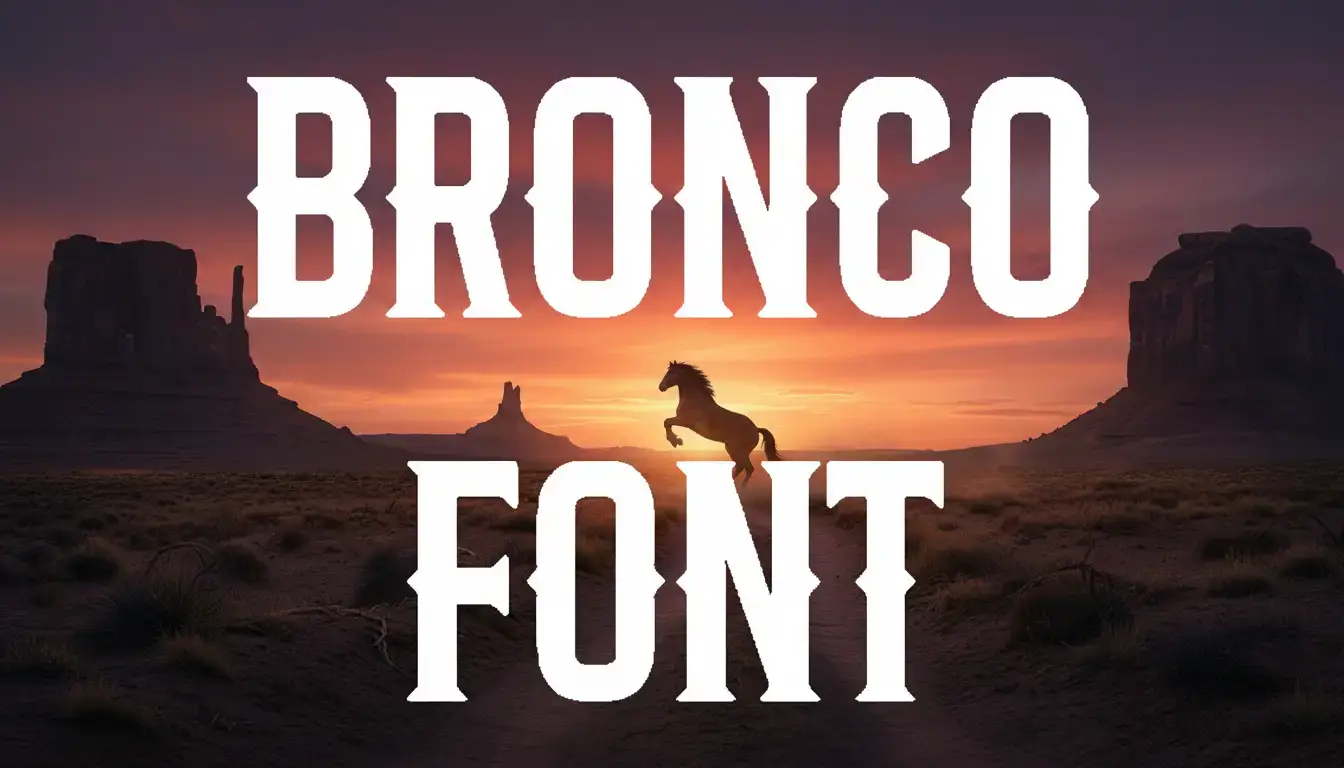
Bronco Font
Bronco Font Preview
Bronco
Bronco Character Map
What You Can Type With Bronco
Bronco covers the full alphabet in upper and lowercase, plus all ten numbers, so you can set names, dates and prices without switching fonts. Common punctuation such as !, ?, # and % is included as well. It doesn't include accented letters such as é or ñ, which makes it an English-only font.
Where Bronco Works Best
Bronco is a natural fit for rodeo posters, saloon signs and country music flyers. Try it in brown, rust or cream on a paper texture for the full old-west look.
Does Bronco support accented letters?
No. Bronco has no accented letters such as é, ñ or ü, so it's best for English text.
What fonts pair well with Bronco?
A sturdy slab serif or a simple serif works well for the smaller text.